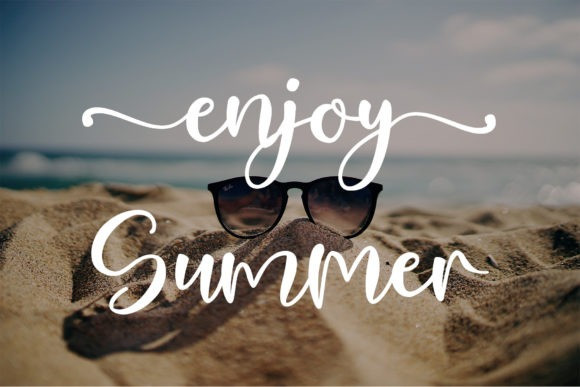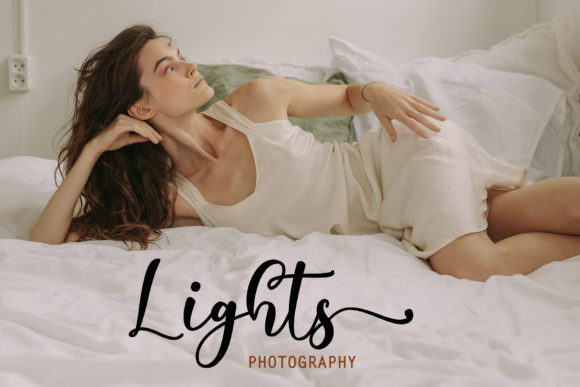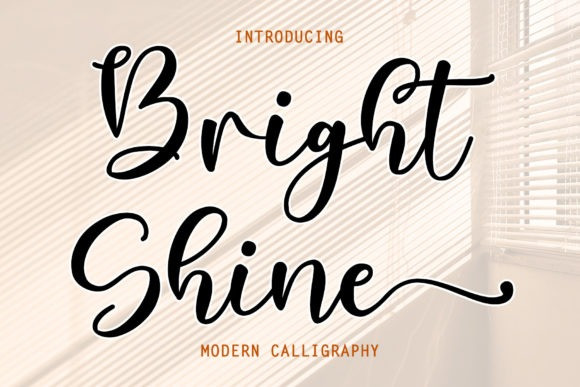
Bright Shine Font
Bright Shine Calligraphy Font is a ravishing script font. It will add a luxury spark to any design project that you wish to create! This font is PUA encoded which means you can access all of the amazing glyphs and ligatures with ease!